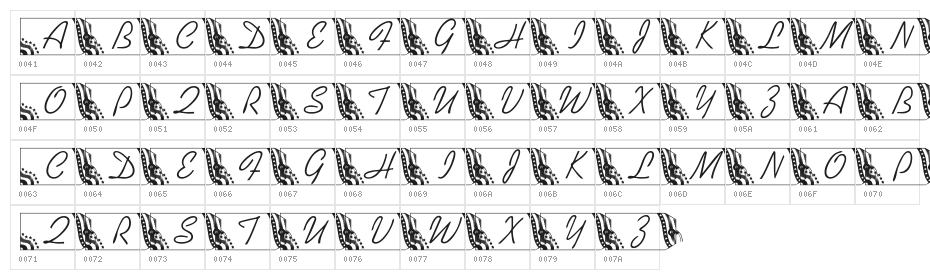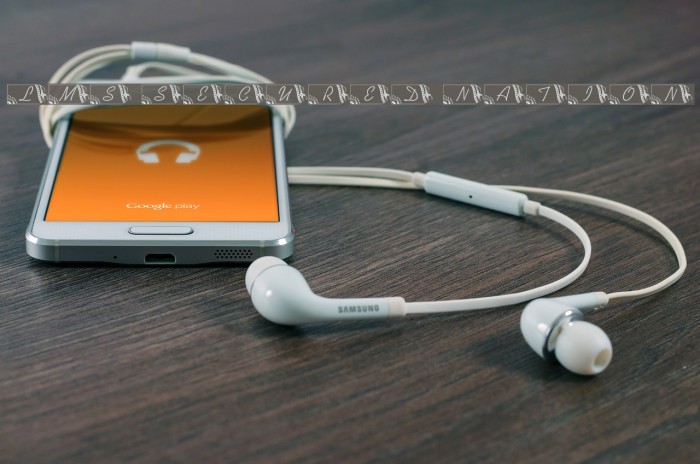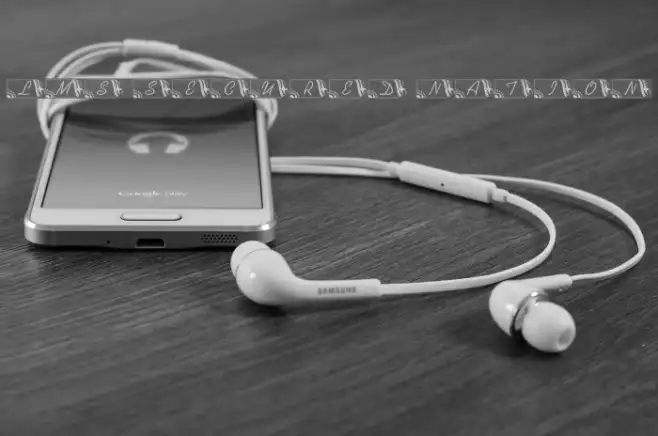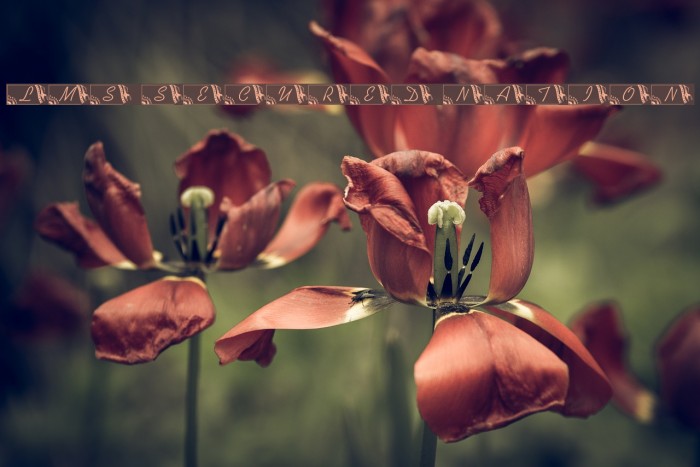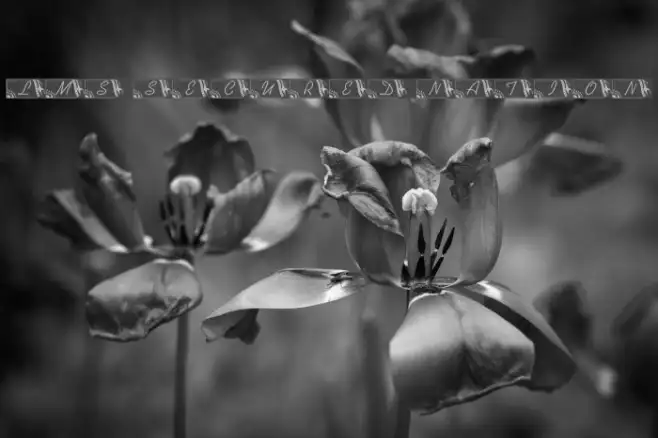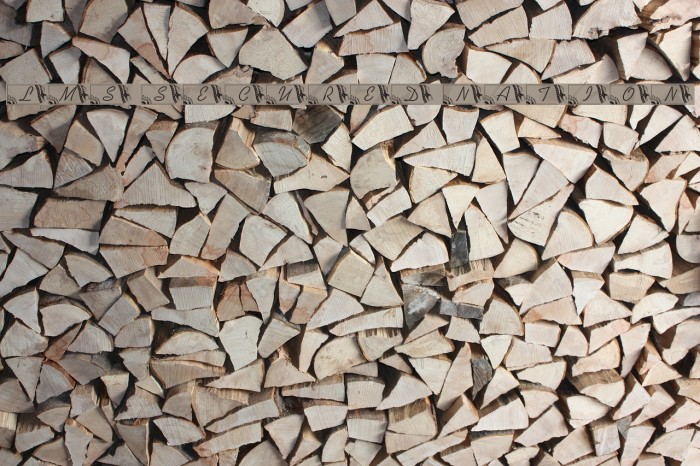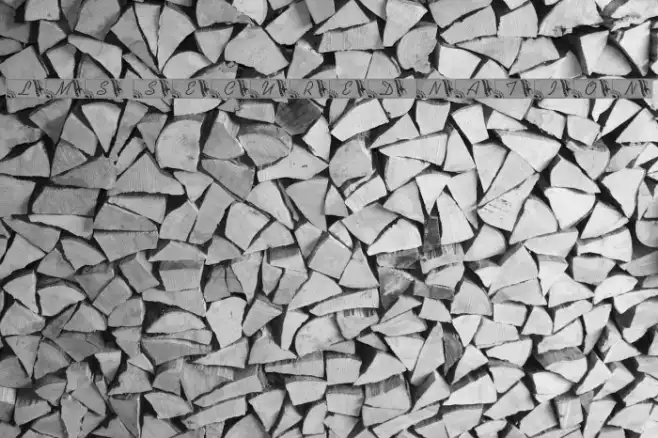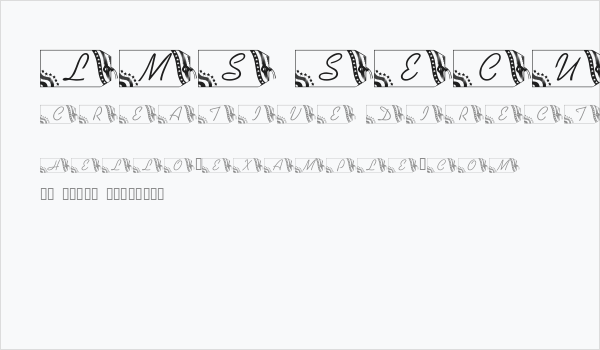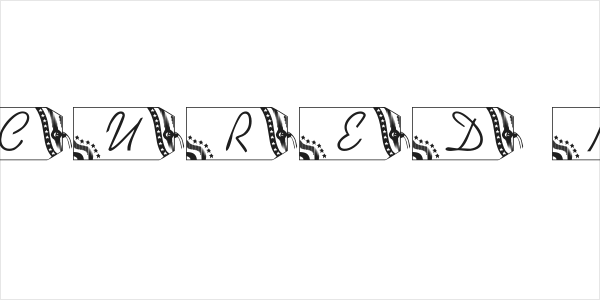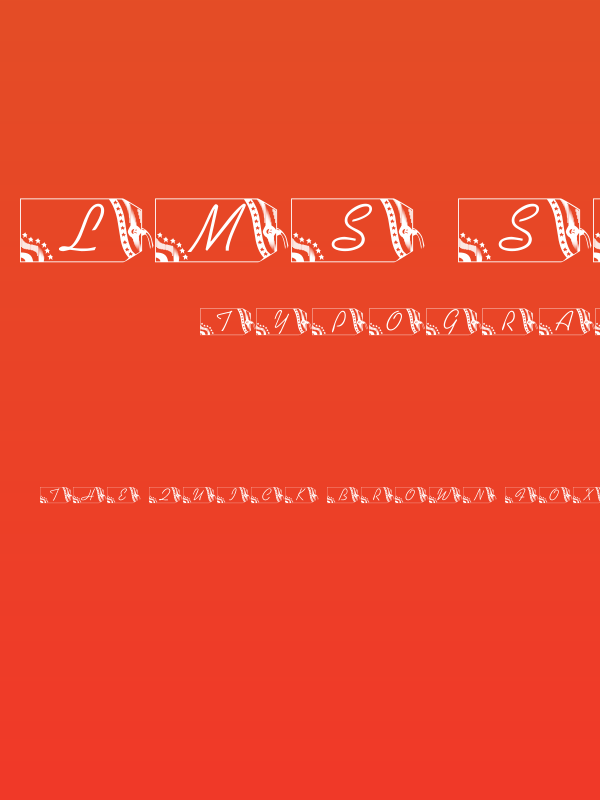
LMS Secured Nation Font
LMS Secured Nation Description
This font features an elegant and sophisticated script style, characterized by its flowing, cursive letterforms. Each character is adorned with intricate flourishes and decorative elements, giving it a luxurious and ornate appearance. The uppercase letters are particularly elaborate, with sweeping curves and loops that convey a sense of grandeur. The lowercase letters maintain a consistent style, complementing the uppercase with their own subtle embellishments. The numerals and special characters are designed to match the overall aesthetic, ensuring a cohesive look across all text. This font is ideal for projects that require a touch of elegance and refinement.
| Proposed Projects | Wedding invitations, luxury branding, high-end product packaging, elegant event posters. |